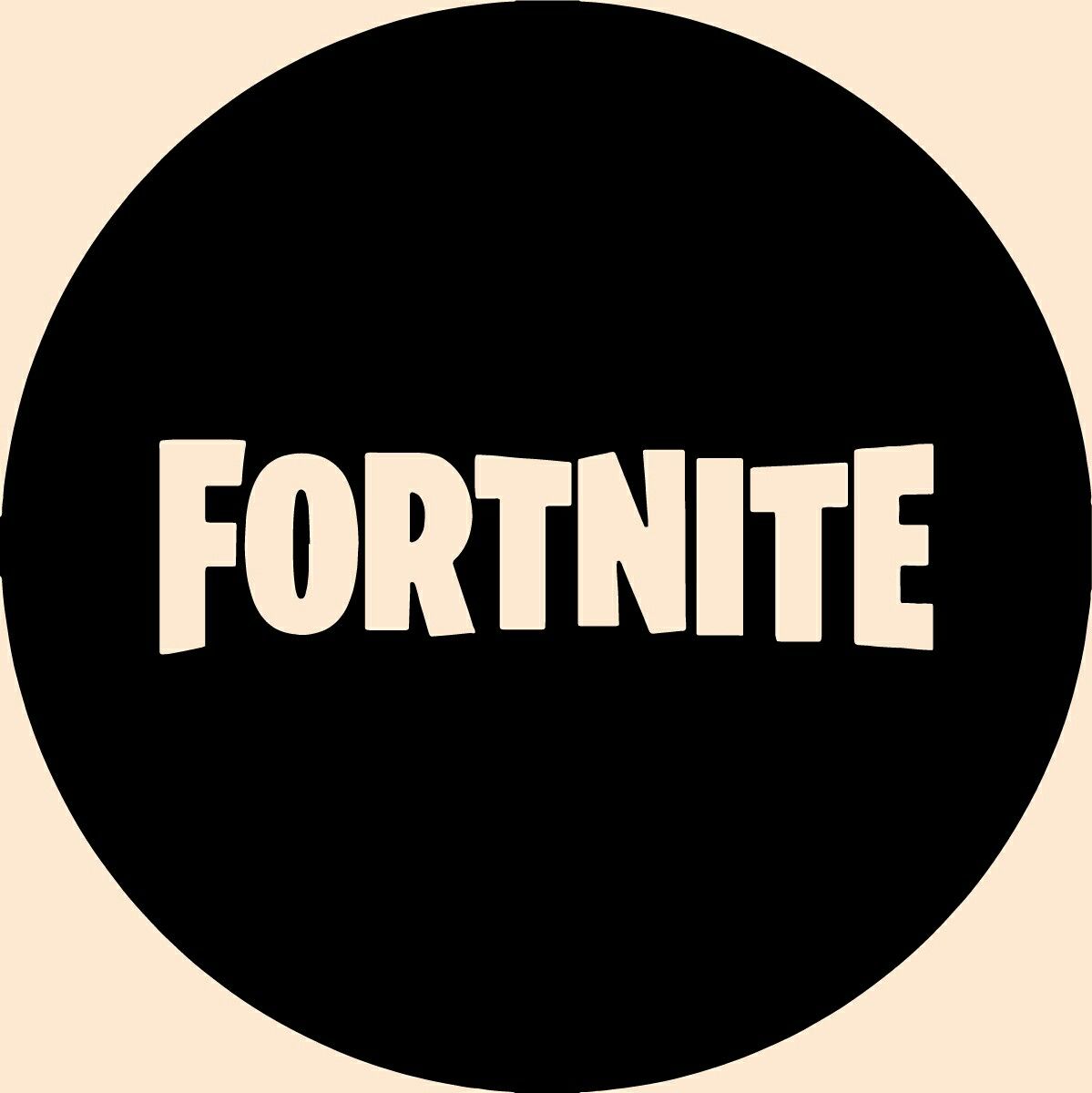
The fortnite logo font family is created for a video game which was. Please i need it very much.
What font does fortnite use. I spent 2 hours looking for it already and i can't find the original font only bold or condeced ones. Fortnite font is known as burbank big condensed black textual style planned by tal leming. What is fortnite font called?
You may be surprised to know that fornite font is actually called burbank big condensed black. Please purchase a license for the font on house industries if you would like to use it to support its original designer, tal leming. To clearly understand, the burbank is a typeface that is available in 20 styles.
This font is published by house industries. The font is pretty old, however, it really became famous when the game fortnite decided to use it in its logo. Fortnite font belongs to an amazing font family, it was actually designed by tal leming.
This is the reason why many people call it the fortnite font. For futura, the lowercase y is not curved, and the lowercase f is much taller than in fortnite. Download free quality fonts for your phone, windows, mac and linux devices.
As mentioned earlier, the typeface used to typeset the fortnite logo is burbank big condensed black. For arial / helvetica, the uppercase c is far more closed than in fortnite, and the two diagonal components of the uppercase k are less symmetrical. Unfortunately i don't think its one of those three fonts.